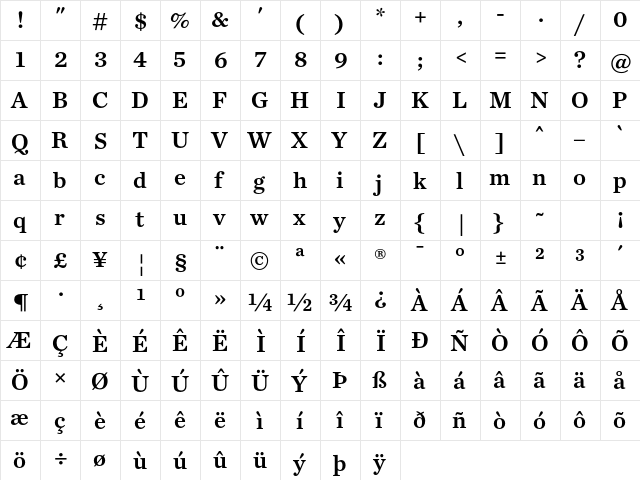
Chronicle Text G2 Semibold
| Foundry | Hoefler & Frere-Jones |
| Designer | Hoefler & Frere-Jones |
Design Context for Chronicle Text G2 Typeface
Chronicle Text G2 takes a measured approach to typography — its balanced proportions and neutral character make it a reliable workhorse for both digital and print work. The heavy weight commands attention and anchors typographic hierarchies.